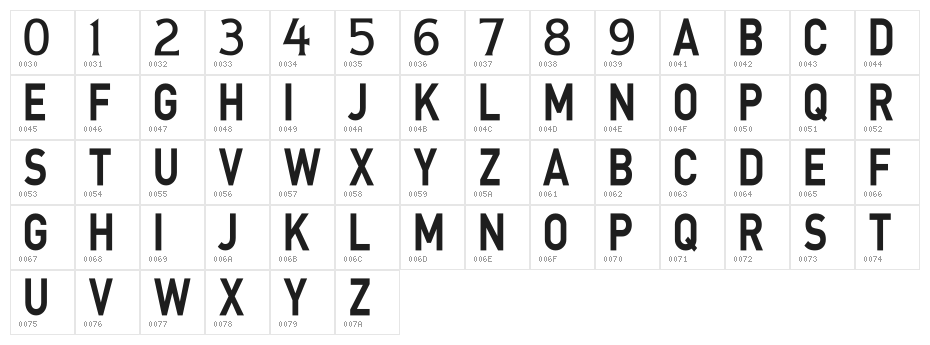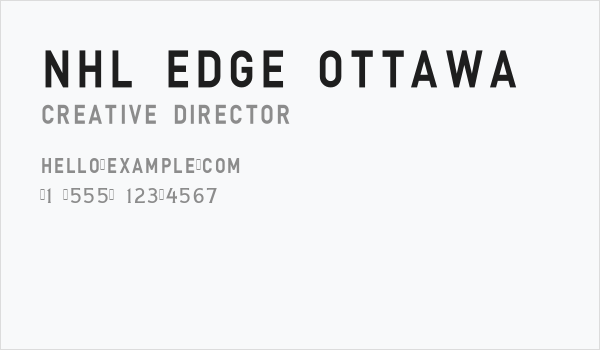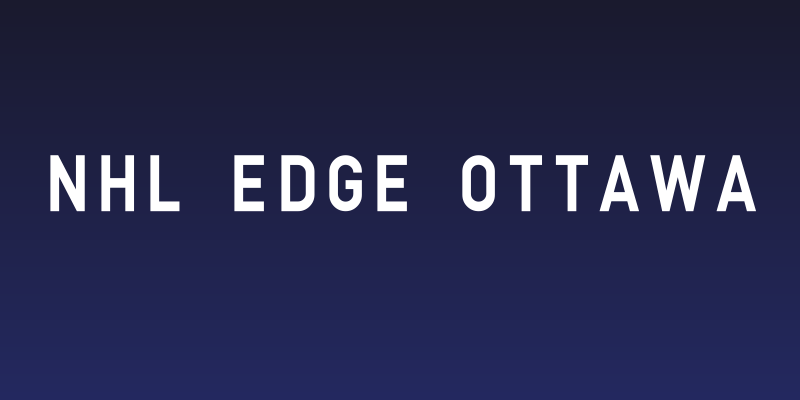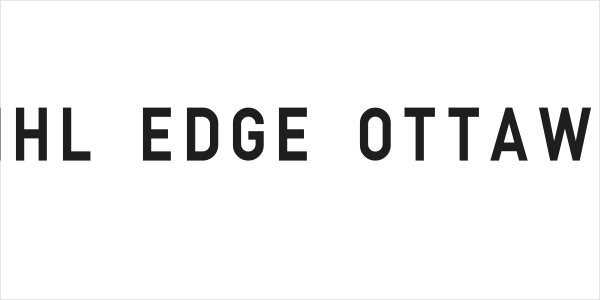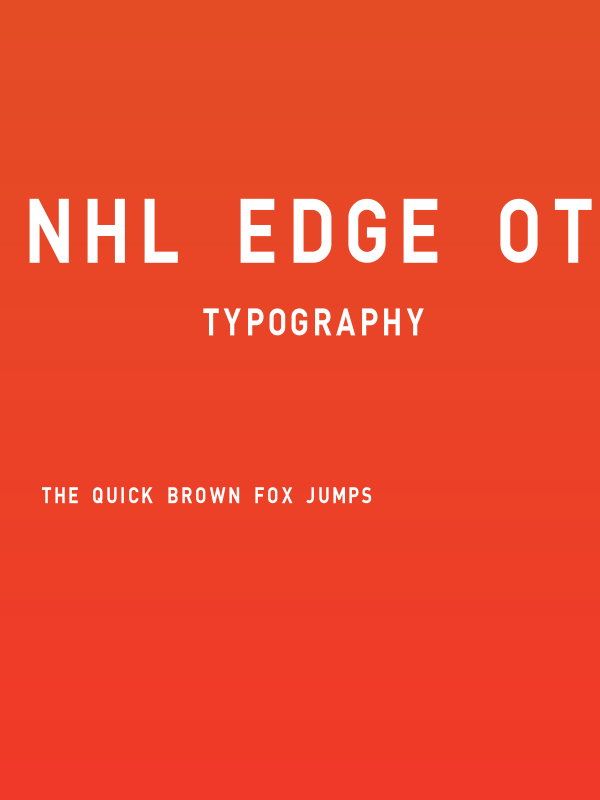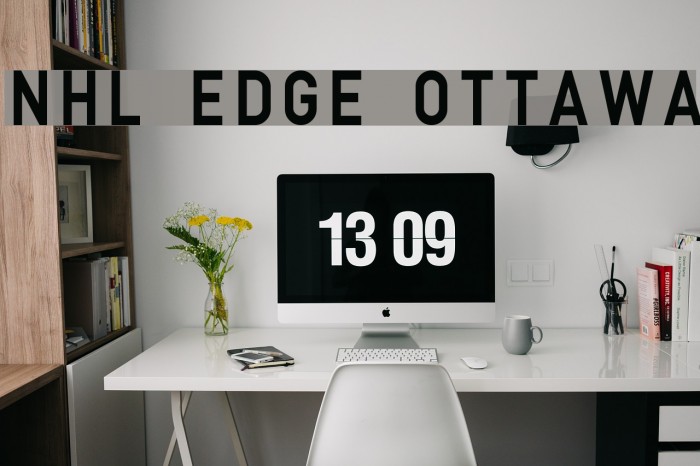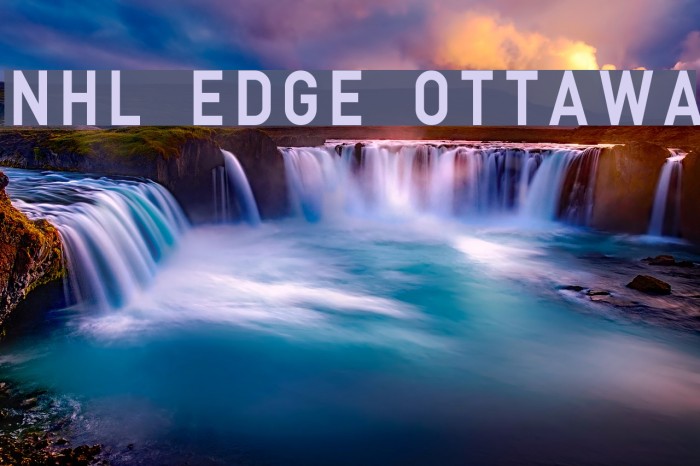
NHL Edge Ottawa Font
NHL Edge Ottawa Description
This font features a bold and modern sans-serif design, characterized by clean lines and a strong geometric structure. The uppercase letters are uniform in height, providing a balanced and cohesive appearance. The numerals are distinct and easy to read, complementing the overall style. The font's simplicity and clarity make it versatile for various design applications, offering a contemporary aesthetic that is both professional and approachable. Its bold weight ensures high visibility, making it suitable for impactful headlines and signage.
| Use Case | Headlines, Logos, Signage |
| Proposed Projects | Ideal for sports branding, team jerseys, posters, and modern corporate identities. |